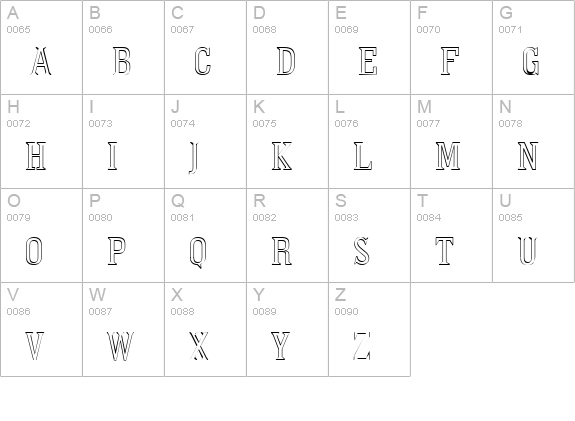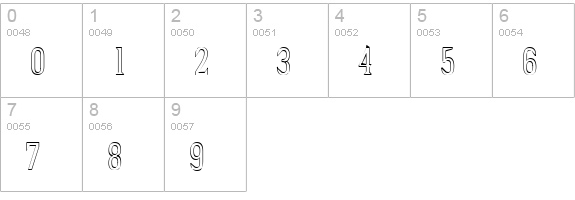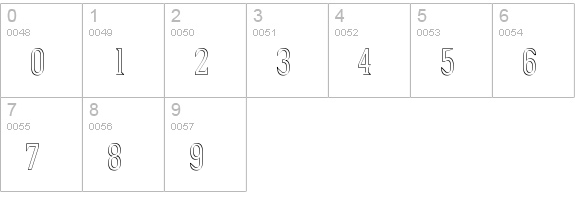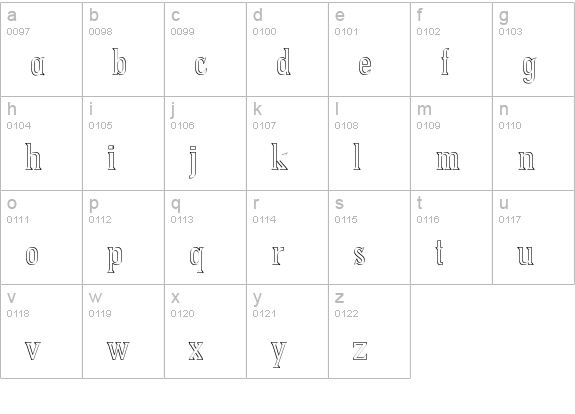
PointedOut Font Details
Introducing PointedOut font, a stunning typeface that combines elegance with a touch of edginess. This unique font features sharp, pointed serifs that give it a distinctive and modern look. Perfect for adding a bold statement to your designs, PointedOut is versatile and eye-catching. What makes PointedOut font even more appealing is that it is available for free download at FontsMarket.com. This means you can easily enhance your projects with this captivating font without any cost. Whether you're working on branding, posters, invitations, or any other design project, PointedOut font is sure to make a lasting impression. Download it today and elevate your designs to the next level!